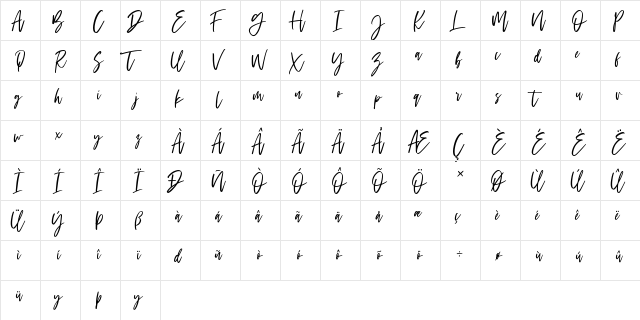
Ramland Clean Regular
| Designer | Sronstudio |
Design Context for Ramland Clean Typeface
Ramland Clean is a composed and adaptable typeface that performs quietly and consistently across a wide range of design contexts.